26 PowerPoint fonts to up your slide deck
Most presenters prefer to use visual content, with only about 15% of slides being heavily text-based. Does this mean that text is not important in presentations? Far from it.
Think about things like headings, infographics, bullet points, or questions that invite audience participation. Even minimal text can make a big impact in a presentation. So, your choice of the right PowerPoint font can be very important.
We’re saving you hours of internet research with these 20 best fonts for PowerPoint presentations. From professional classics, to eye-catching, modern alternatives, we guarantee you’ll find the perfect typeface for your slide deck!
Classic sans-serif fonts
Sans serif typefaces are the most used in a professional context for a good reason. They're versatile, professional and easier to read than decorative serifs and script fonts.
Some of the most famous wordmark logos use this type of fonts, such as Nike, Adidas, and Facebook. If you want your presentation design to have a slick, minimalist look these are the fonts to choose.
1. Arial
Arial is a free Microsoft font, so you won’t need to download it and add it to PowerPoint to use it. It’s very popular and for good reason - the slightly tall lowercase letters look very elegant, but still provide high legibility.
2. Helvetica
This is definitely one of the most popular sans serif fonts out there, as it's very professional and legible. Since the letters are a bit bolder, Helvetica is also suitable for text in slightly smaller sizes. You will need to download this font and add it to PowerPoint in order to use.
3. Optima
Designed by Hermann Zapf, Optima is a more unique alternative to Arial. The letters have a starker contrast in line width, and more gentle curves. So, this font will give your presentations a more elegant, human feel.
4. Lato
Lato is a free Google font created by Polish designer Łukasz Dziedzic. It was originally created as a brand font for a corporate identity. So, it’s no surprise that it’s one of the best fonts for PowerPoints, thanks to its sleek, corporate look. It comes in several variations (italic, bold, black) so you can mix and match throughout your slide deck.
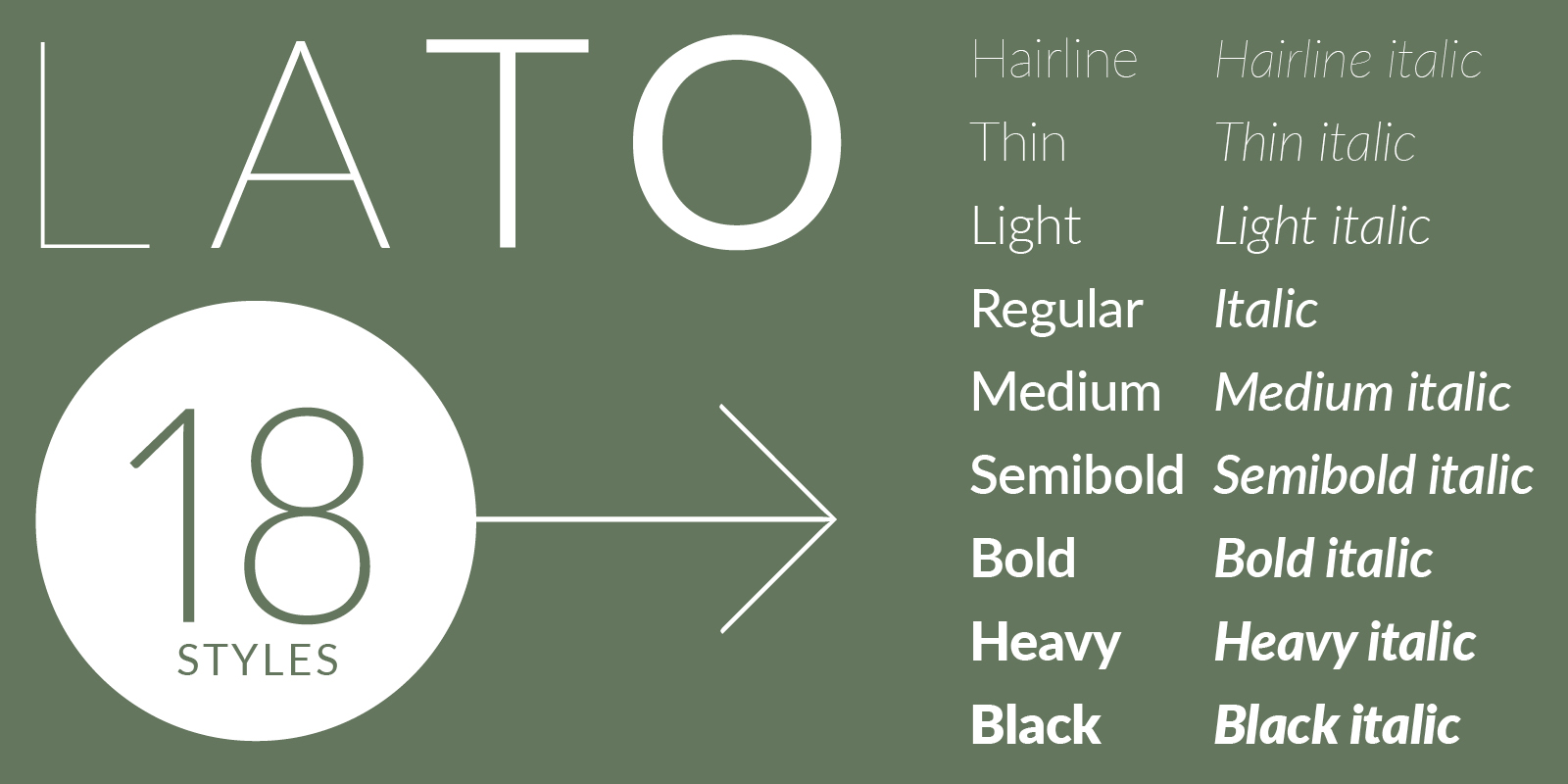
5. Tahoma
If you want an impactful font, Tahoma is a great option. This Microsoft font was created by designer Matthew Carter, and thanks to its geometric letters, makes a great font for headings, as well as body text.
6. Gill Sans
Shifting gears a bit, we’ve got Gill Sans, another Microsoft font with a lot of character. The width of the letters is quite different, so you’ll achieve a more dynamic look in your presentations, keeping audiences engaged.
7. Calibri
Calibri is Microsoft’s default font, which is why people often avoid it in graphic design. However, this font definitely deserves its place on the list of best fonts for PowerPoints. It’s crisp, legible and simple - perfect for bulleted lists, and bigger chunks of text.
8. Poppins
Poppins is a favorite among many graphic designers and for good reason. It has perfectly geometrical letters with equal line widths, so it’s very easy to incorporate this font into virtually any design. Whether you want to spruce up your presentation with an infographics, or create a bold and impactful heading - this typeface does the trick.
9. Corbel
If you’re looking for true minimalism, Corbel should be your font of choice. It comes in several variations (regular, light, and bold), but all the styles have relatively thin lines and minimal ligatures. The kerning is also quite generous, making this a great digital font.
10. Segoe
If you have a tech or SaaS business, this might be the best font for PowerPoint presentations out there. The fluid shapes convey a sense of creativity, while minimalistic details and consistent line wights make Segoe seem crisp and professional, no matter how you use it.
11. Tahoma
If you can’t decide what font to use, but wish to avoid the default Calibri, this is for you. Tahoma is a great, unassuming font that will suit virtually any purpose and industry. It was created with CTA buttons, dialogue boxes and menus in mind, so thanks to the tall letters it’s a great fit for smaller text boxes in your presentation.
Best serif fonts
Serif fonts are the descendants of old penmanship, so they can often look quite decorative and traditional. Nevertheless, there are quite a few modern alternatives that fit very well into different digital designs. If you opt for a serif font, just make sure that its character fits with your brand identity and the topic of your presentation.
12. Palatino Linotype
Palatino is another font included in the Microsoft package, so you won’t need to download it to use in PowerPoint. It’s the new version of Hermann Zapf’s original typeface. It’s the perfect serif font to use in your presentations, as it’s elegant, legible and modern.